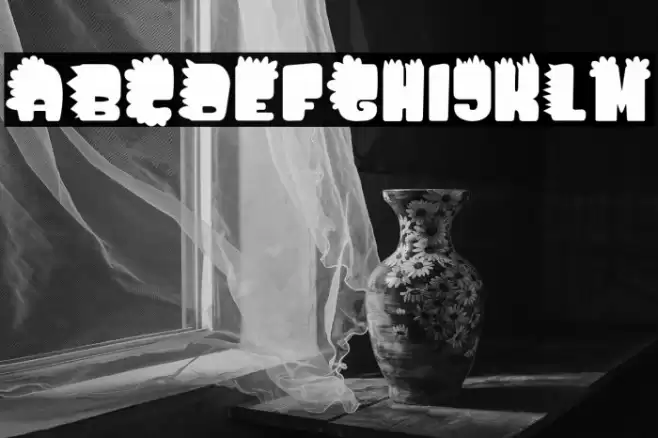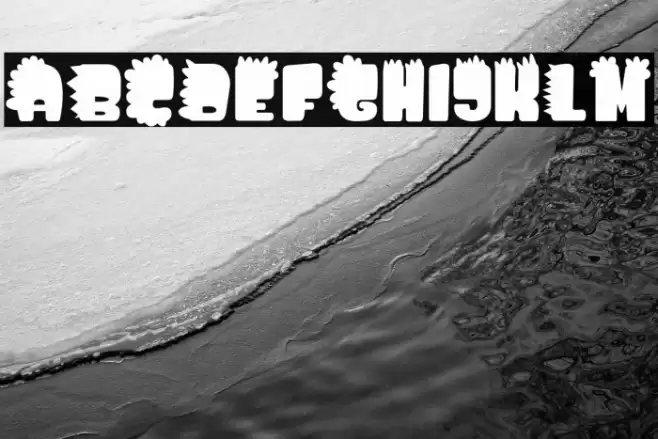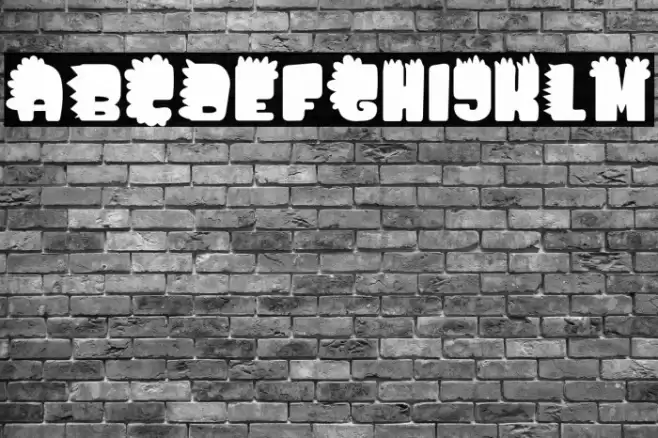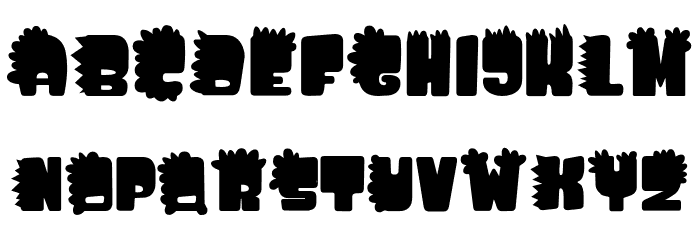
Little Dino PERSONAL USE ONLY! Font
Little Dino PERSONAL USE ONLY! Description
This playful and bold font features a unique dinosaur-inspired design, with each letter incorporating elements reminiscent of prehistoric creatures. The characters are chunky and have a whimsical, cartoonish style, making them stand out with their distinctive, jagged edges and playful shapes. This font is perfect for capturing attention and adding a fun, youthful vibe to any project. The uppercase letters are consistent in their boldness, creating a cohesive look across the alphabet.
A playful, dinosaur-themed font with bold, cartoonish characters from Uncategorized fonts.
- Proposed Projects: Ideal for children's books, educational materials, themed party invitations, and playful branding.